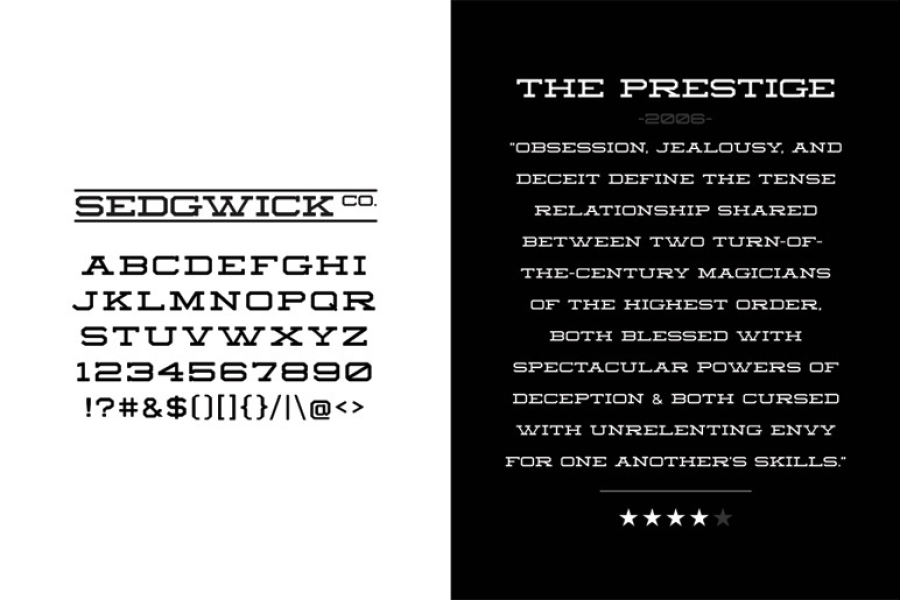
Sedgwick Co Regular Waterfall
About a year ago I decided to begin a project called “The Hometown Homage Type Project” The concept behind this project was to create a typeface inspired by every place I have lived, and a new one for every new city I move to. I use each typeface to not only mark a period of my life, but also track my progress and changing personality as a designer. My first finished typeface is Sedgwick County. It is inspired by the city of Wichita, KS. It borrows from the traditional western slab serif typefaces and mixes in modern inspiration to make it a solid and very masculine typeface.